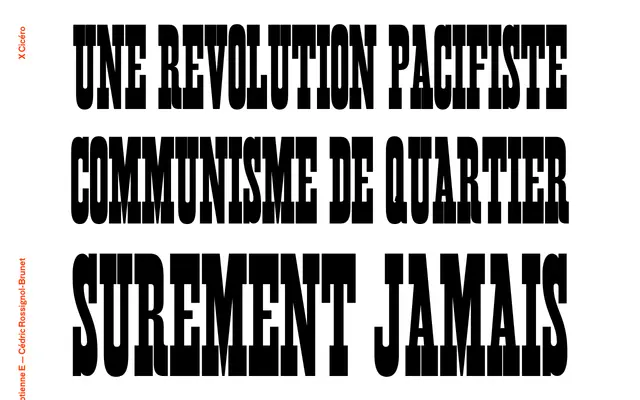
Egyptienne E
A display slab serif in the Egyptian tradition, shown in bold headline settings with a direct, declarative character.
Egyptienne E draws on the Egyptian slab serif tradition, with the specimen text suggesting a use case rooted in large-scale display and poster work. The page presents it through short, punchy French phrases that reinforce its suitability for political or editorial headlines. Little technical detail is available, but the typeface reads as a focused single-weight display cut from the X Cicéro student foundry at ESAD Grenoble-Valence.
The typeface name and visual specimen suggest a slab serif in the Egyptian tradition, characterised by heavy bracketed or unbracketed serifs of uniform stroke weight typical of 19th-century Egyptian display types.